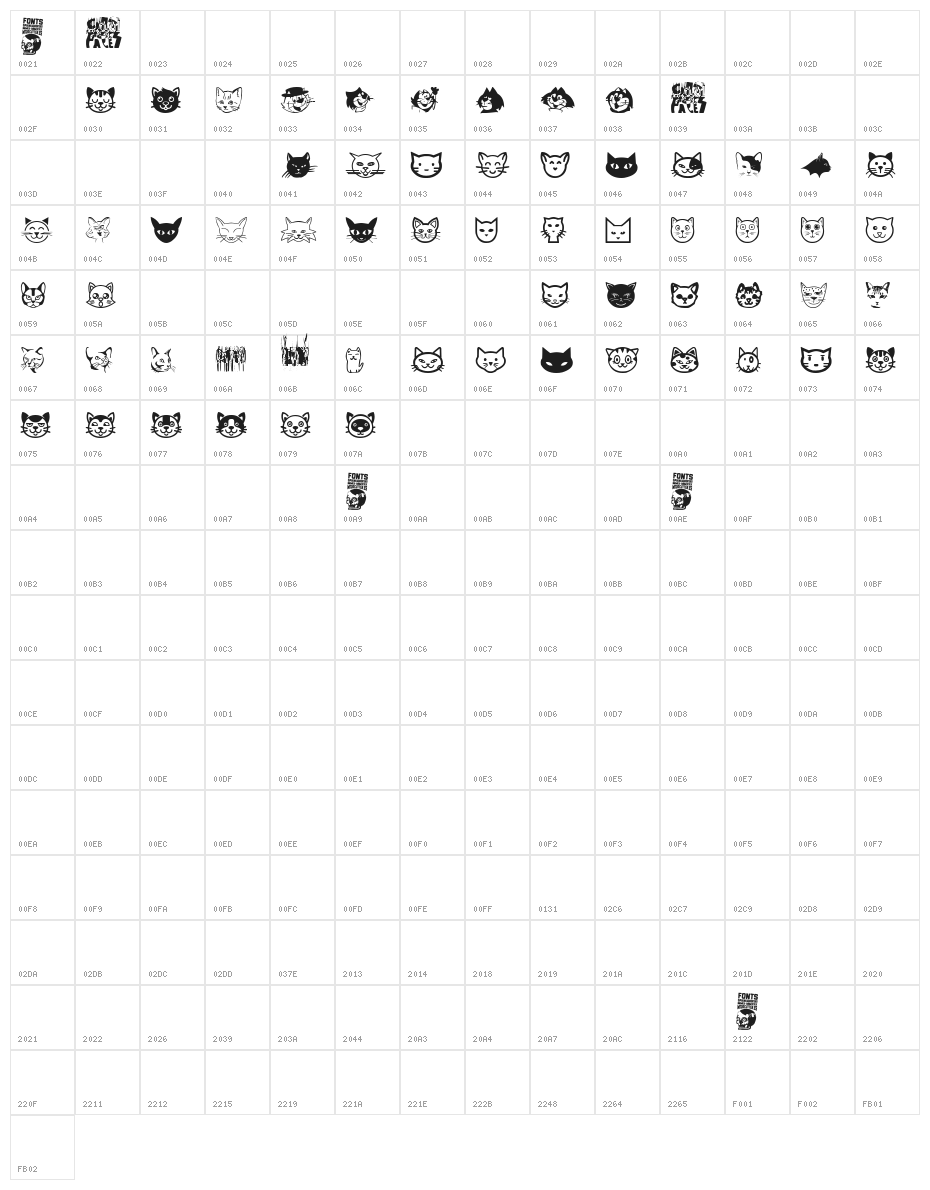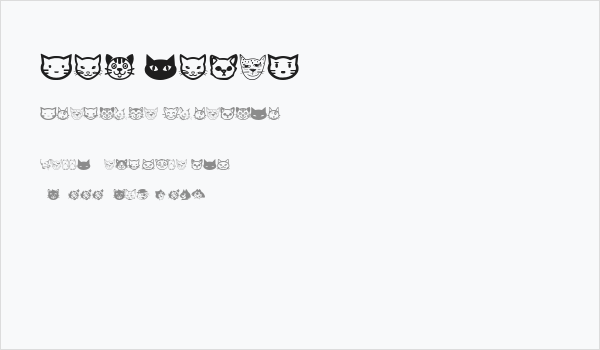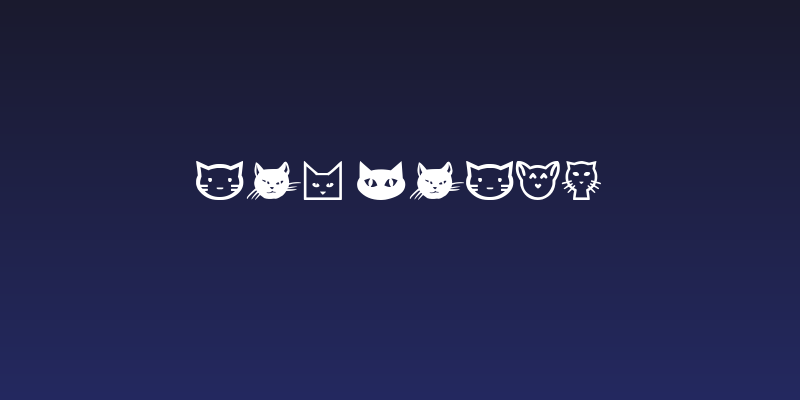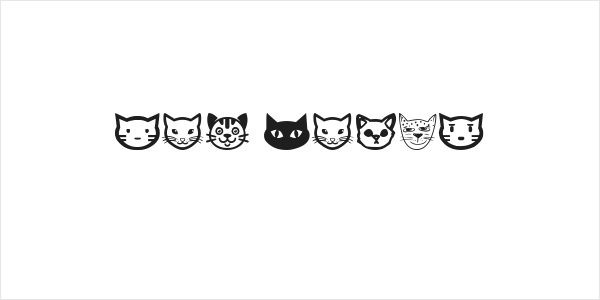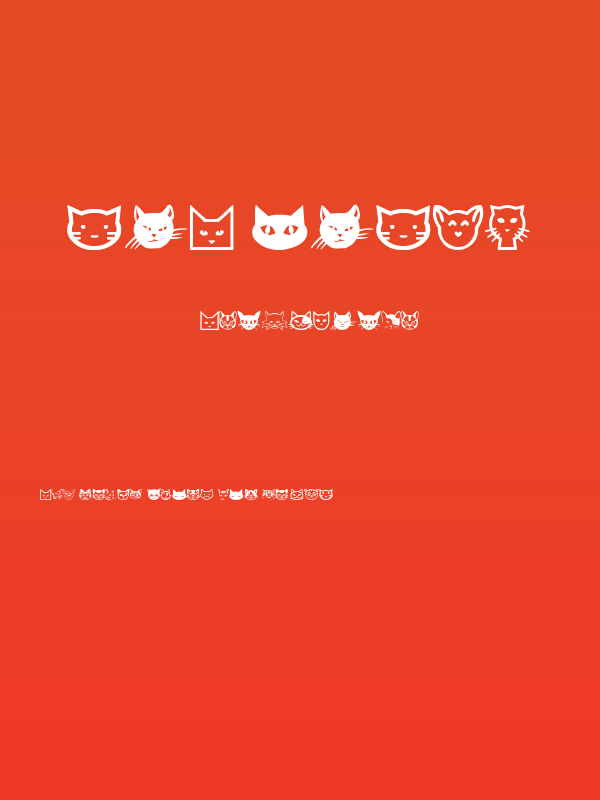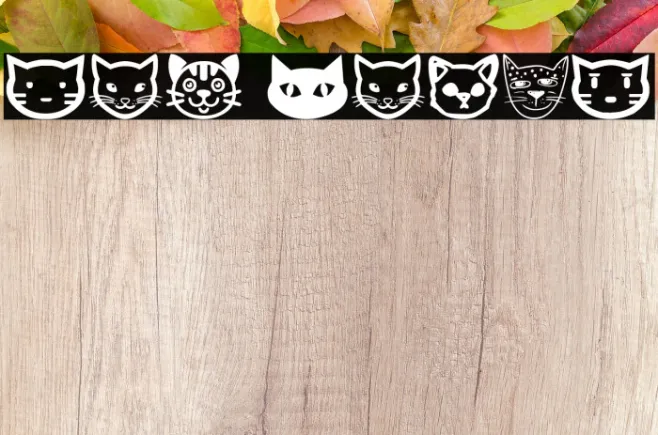
Cat Faces Font
Cat Faces Description
This decorative font features a variety of cat faces, each with unique expressions and styles. The characters are playful and whimsical, showcasing a range of feline emotions from curious to mischievous. The design is bold and graphic, with strong outlines that make each cat face distinct and easily recognizable. The font is perfect for projects that require a fun and lighthearted touch, such as children's books, pet-related branding, or playful event invitations. The variety in the cat faces adds a dynamic and engaging element to any design.
| Use Case | Logos, Decorative elements, Event invitations |
| Proposed Projects | Ideal for children's books, pet branding, playful invitations, and whimsical designs. |